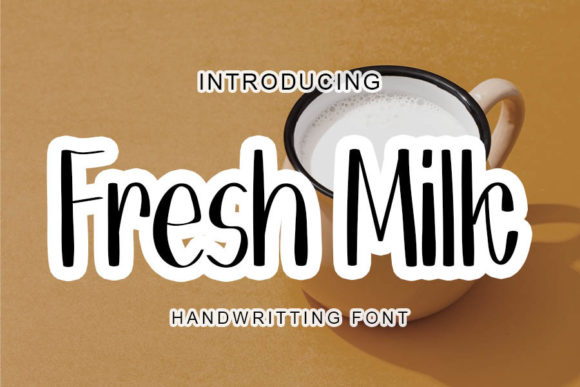
Get ready to turn your creative visions into reality with Fresh Milk Font, the ultimate digital lettering masterpiece brought to you by the artistic genius of shiddiq.art! This enchanting handwritten font, carefully crafted with the charm of chalkboards and the warmth of teaching materials, invites you to embark on a delightful journey of self-expression.
Immerse yourself in the realm of culinary artistry and let Fresh Milk Font sprinkle a touch of magic upon your food advertising designs. Its playful, whimsical nature will entice your audience, evoking a sense of nostalgia and familiarity. Whether you're designing menus, posters, or eye-catching social media posts, Fresh Milk Font will add an irresistible charm that will leave your audience craving more.
Beyond the realm of food, Fresh Milk Font possesses a remarkable versatility that makes it an indispensable tool for any creative endeavor. Its handwritten style exudes a personal, genuine feel, perfect for adding a human touch to your designs. From heartwarming invitations and wedding stationery to captivating posters and flyers, Fresh Milk Font seamlessly adapts to your creative vision, transforming your words into works of art.